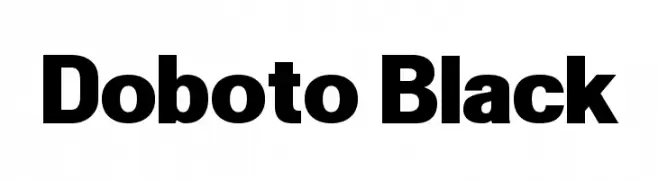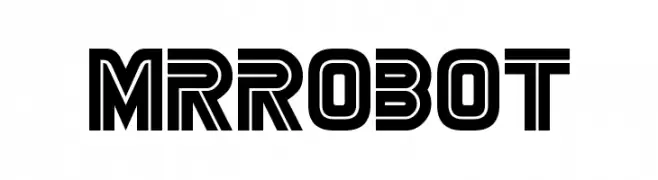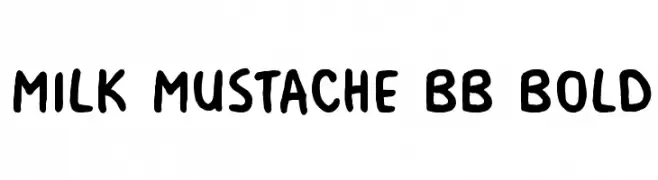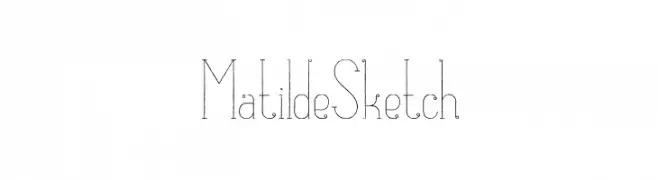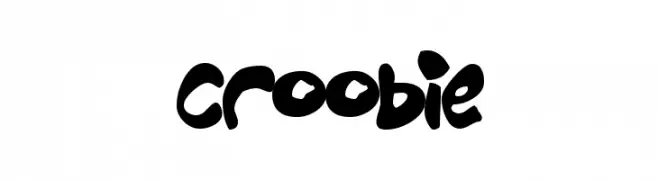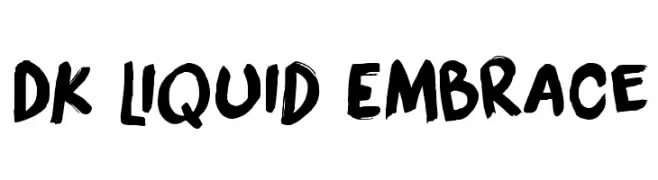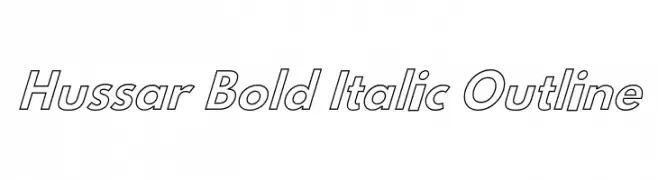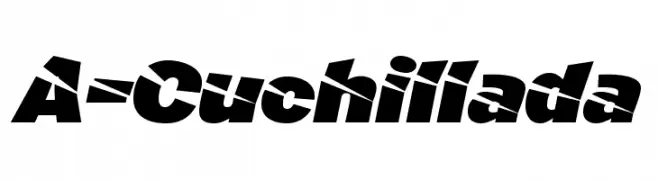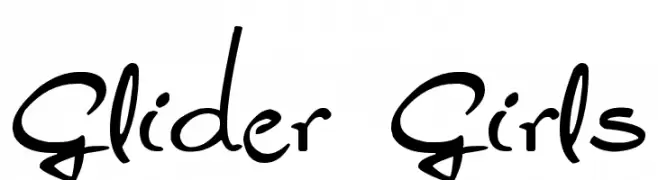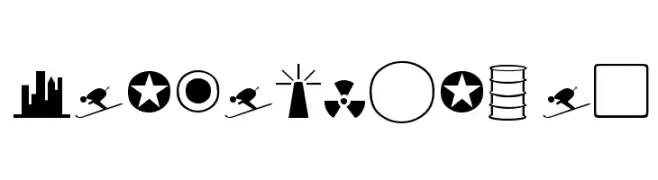
A bold, brush-stroke font with high contrast and dynamic movement.
A modern, geometric sans-serif font with clean lines and uniform strokes.
A bold, modern typeface with strong, consistent strokes and high readability.
A modern sans-serif font with clean lines and excellent readability.
A playful, bold handwritten font with rounded edges and a casual style.
A modern, geometric sans-serif font with clean lines and balanced proportions.
A delicate, sketch-like font with thin, hand-drawn lines and a whimsical aesthetic.
A bold, playful font with bubble-like characters and thick outlines.
A bold serif font with high contrast, perfect for impactful headlines.
An ornate and decorative font with gothic-inspired swirls and embellishments.
A bold, geometric font with high contrast and unique character designs.
A playful, bold, and hand-drawn font with exaggerated curves.
A flowing, cursive font with elegant loops and swashes.
A modern, monospaced font with low contrast and geometric shapes.
A playful and bold script font with dynamic, flowing lines.
A modern, thin sans-serif font with a clean and minimalist design.
A bold, angular font with dynamic cuts for striking designs.
A modern, geometric font with consistent stroke width and clear characters.
A dynamic script font with fluid, interconnected letterforms and a playful aesthetic.
A bold, modern sans-serif font with clean lines and excellent legibility.
A modern, geometric sans-serif font with a clean and balanced design.
A playful, decorative font with bold, hand-drawn characters and whimsical curves.
A bold, decorative font with angular serifs and high contrast strokes.
A bold, shaded font with a vintage, three-dimensional style.
A bold, rugged font with a hand-drawn, distressed appearance.